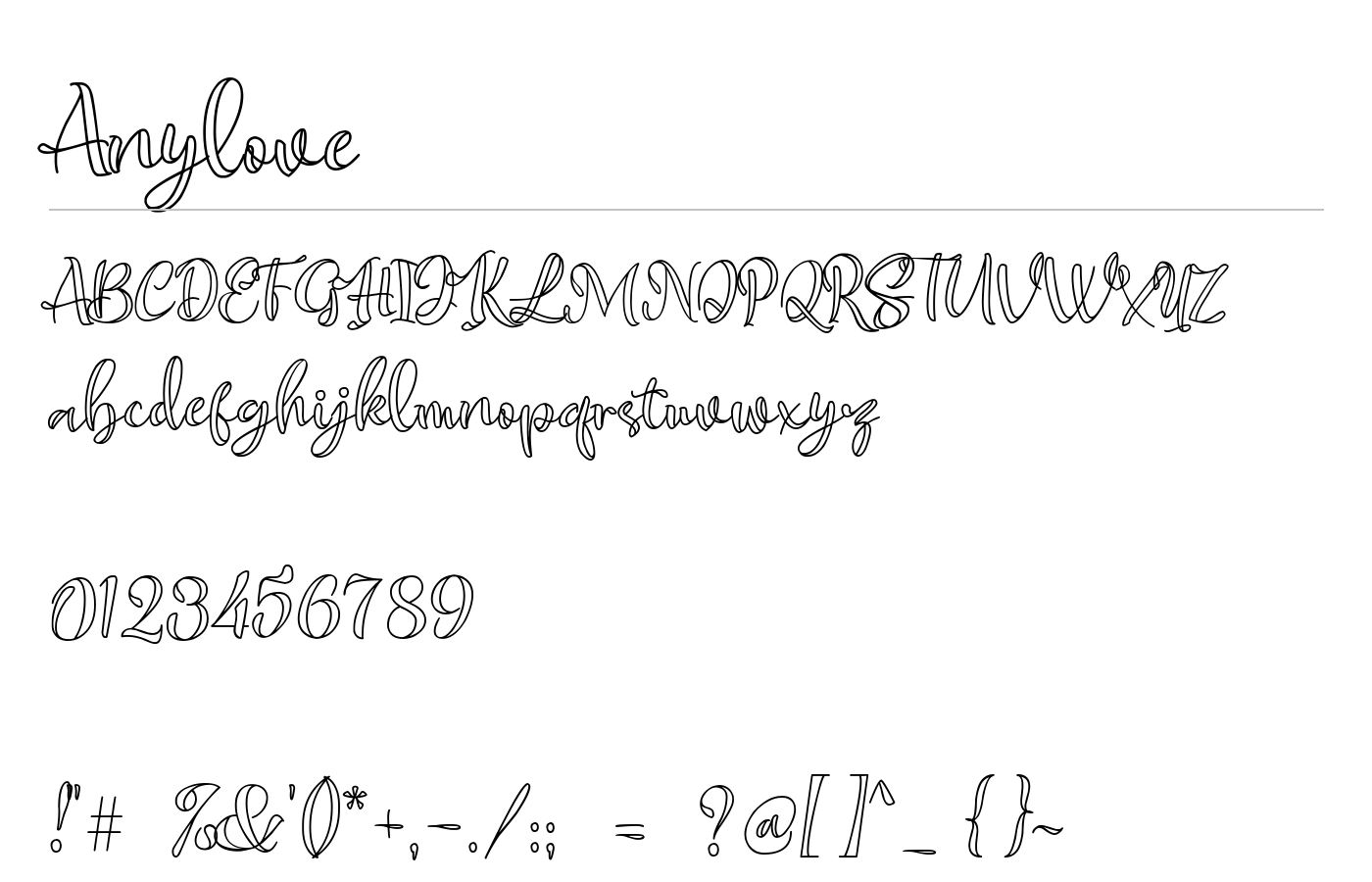
Anylove is a delicate, handwritten script font characterized by its thin, flowing lines and elegant loops, giving it a light and airy feel. Its playful yet refined style suits creative projects, invitations, and branding that seek a personal and sophisticated touch. This font works beautifully for designs that want to convey warmth and charm with a modern, artistic flair.
Anylove Font
About Anylove Font
| Font family | Anylove Font |
| Designer | Nico Muslib |